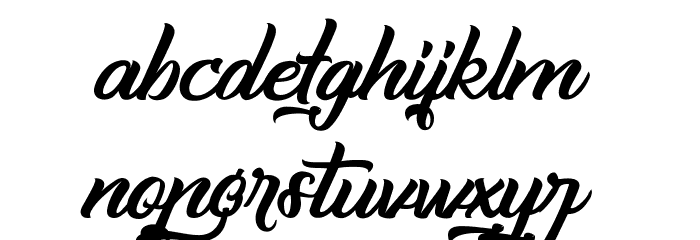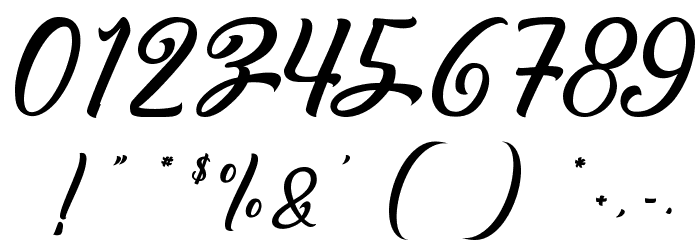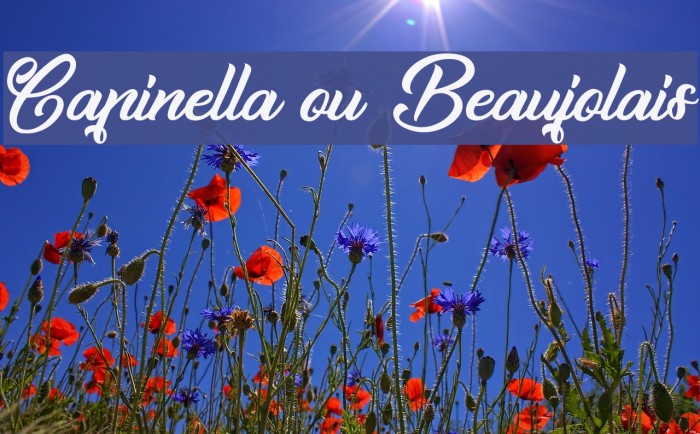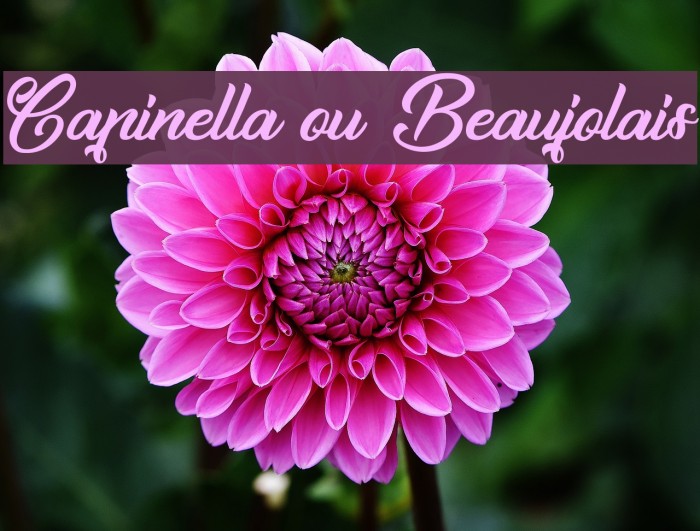
Capinella ou Beaujolais Font
This font exudes a classic and elegant script style, characterized by its flowing, cursive letters that mimic the fluidity of handwriting. The uppercase letters are ornate, with intricate loops and flourishes that add a touch of sophistication. The lowercase letters maintain a consistent style, with smooth curves and a slightly slanted orientation, enhancing the script's graceful appearance. The numerals are bold and clear, maintaining the script's overall aesthetic while ensuring readability. Special characters are thoughtfully designed to match the font's elegant theme, making it suitable for a variety of formal and decorative applications.
An elegant, cursive script font with flowing, ornate characters.
- Proposed Projects: Ideal for wedding invitations, elegant branding, personal stationery, and decorative signage.
- Category: Script
- Overall Style: Classic
- Use Case: Logos, Invitations, Decorative text